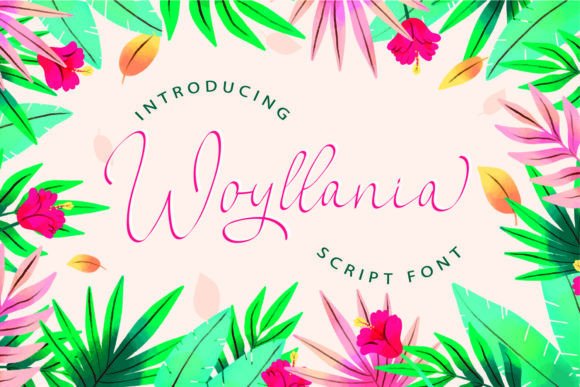
Journey into the Realm of Woyllania: A Script Font Beyond Compare
Immerse yourself in the allure of Woyllania, a captivating script font that weaves romance and elegance into every letterform. Its graceful lines, reminiscent of handwritten love notes, carry a timeless charm that brings warmth and sophistication to your designs. Step into a world where words transform into art, where every letter dances with emotions, and where your vision takes center stage.
Woyllania's versatility shines through its ability to adapt to various creative endeavors, from wedding invitations that whisper sweet promises to love notes that carry heartfelt messages. Its delicate strokes add a touch of femininity and charm, while its contemporary twist ensures it remains effortlessly modern. Let Woyllania be your muse, igniting your imagination and inviting you to create designs that captivate and enchant.
Unleash the Power of PUA Encoding: A World of Glyphs and Swashes at Your Fingertips
With Woyllania, you're not just downloading a font; you're unlocking a treasure trove of typographic possibilities. Its PUA encoding opens the door to a vast collection of delightful glyphs and swashes, meticulously crafted to elevate your designs to new heights. Effortlessly access these embellishments and add intricate details that make your words come alive. From elegant flourishes to playful ornaments, Woyllania's glyphs and swashes are the perfect tools to transform ordinary text into extraordinary works of art.
Embrace the Romance, Ignite Your Creativity: Woyllania Awaits
Woyllania is more than just a font; it's an invitation to let your creativity run wild. Its romantic aura and stylish script bring a touch of magic to any project, whether it's a heartfelt love letter, a whimsical wedding invitation, or an enchanting branding project. With Woyllania, the possibilities are endless.
Experience the Beauty, Indulge in the Romance: Woyllania, Your Font of Choice
Woyllania is more than just a font; it's a gateway to a world of elegance, romance, and boundless creativity. Its enchanting script and PUA-encoded glyphs empower you to create designs that captivate and inspire. Embrace the beauty of Woyllania and allow your imagination to soar.